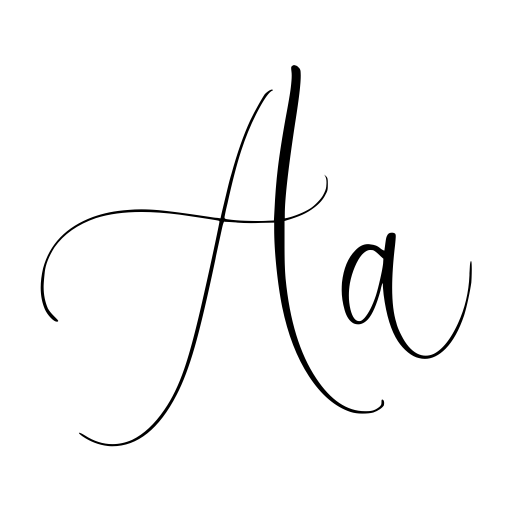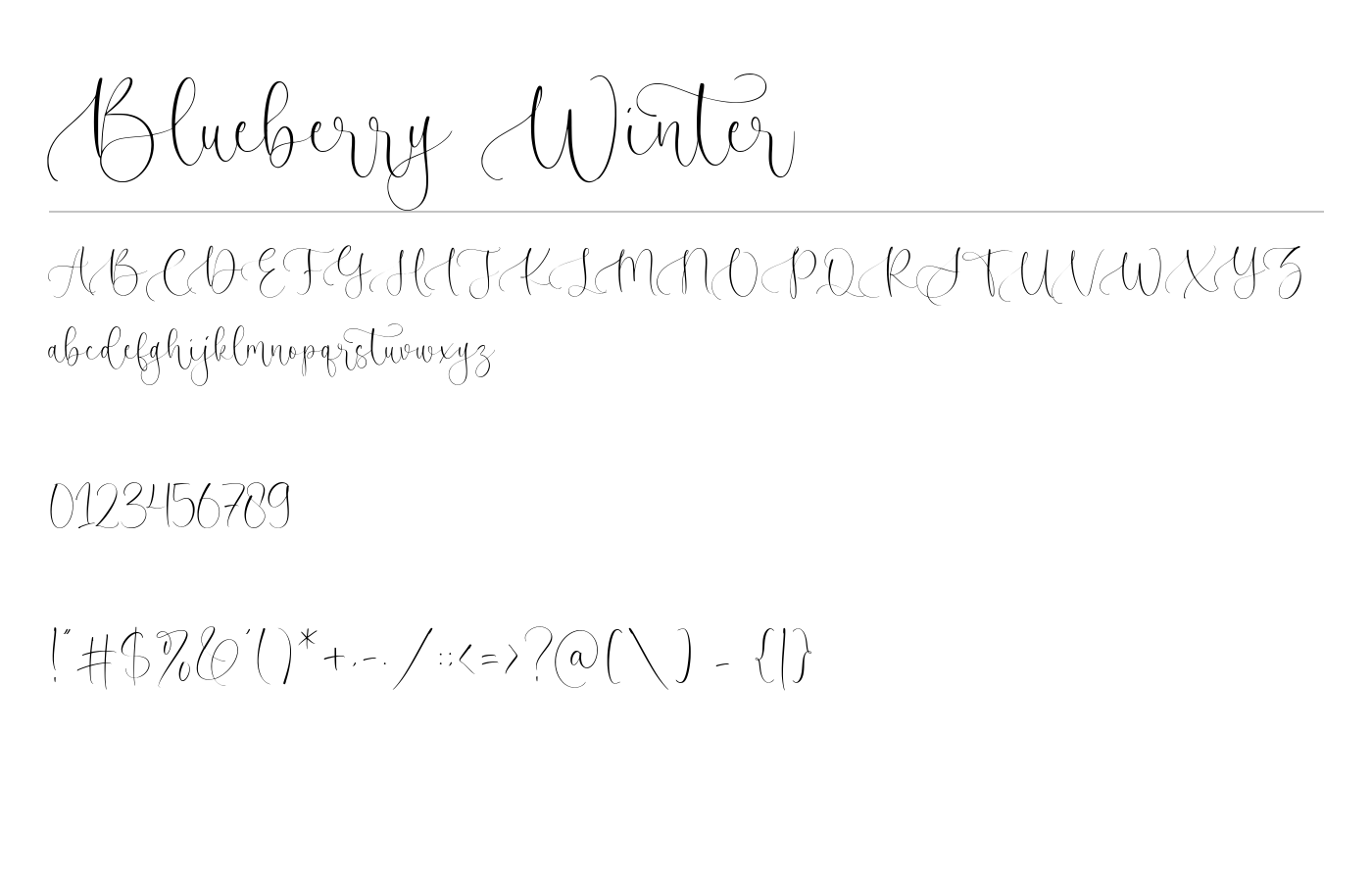
Blueberry Winter is a delicate, elegant script font characterized by its thin, flowing lines and graceful swirls, giving it a hand-drawn, whimsical feel. Its light weight and airy structure make it perfect for romantic and feminine designs, ideal for wedding invitations, personal branding, and luxury packaging where a soft, stylish touch is desired. This font shines in decorative uses and headlines where its intricate details can stand out beautifully.
Blueberry Winter Font
About Blueberry Winter Font
| Font family | Blueberry Winter Font |
| Designer | Letterative Studio |